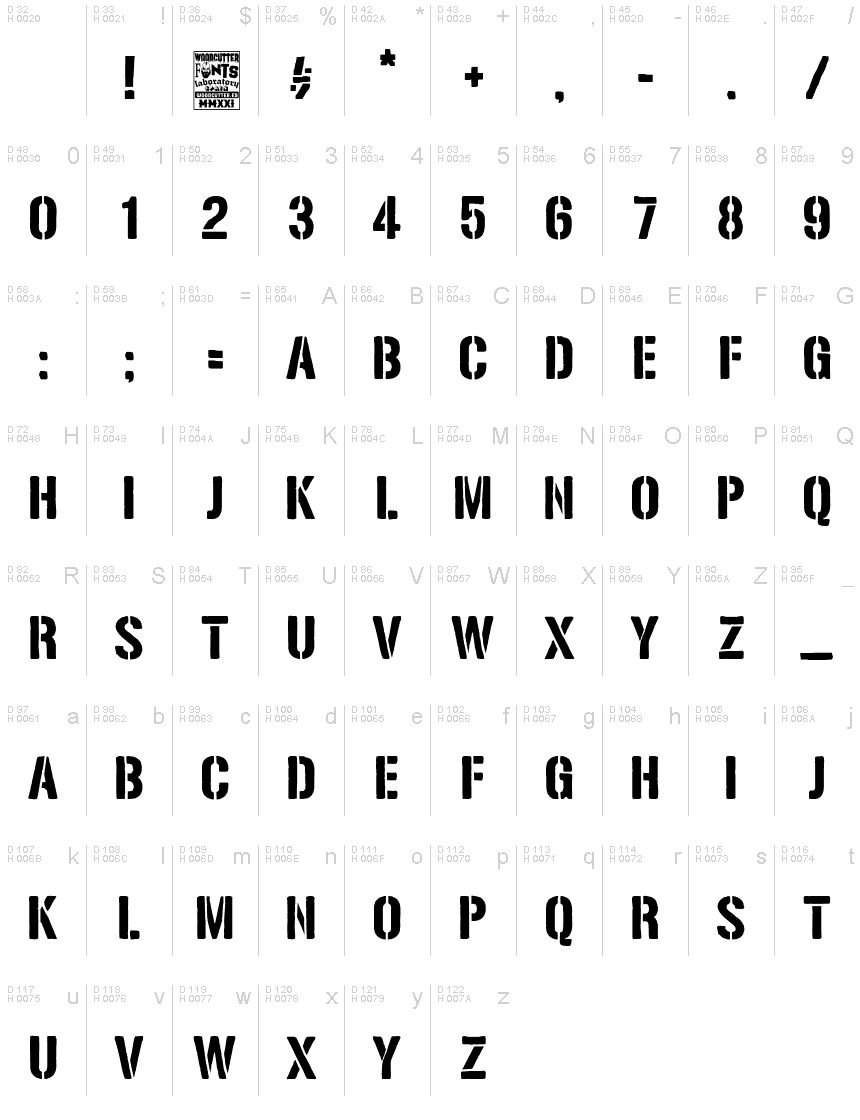
Solid Stencil 2023
Solid Stencil 2023 by Woodcutter is a bold display font that boasts a military stencil style. Its strong, rugged lines and sharp edges make it perfect for projects that require a no-nonsense attitude, such as posters, logos, and branding materials. The font's bold weight commands attention and adds an air of authority to any design project. Solid Stencil 2023's unique style also makes it well-suited for projects related to the military or law enforcement. So if you're looking to add some grit and toughness to your design work, look no further than Solid Stencil 2023!